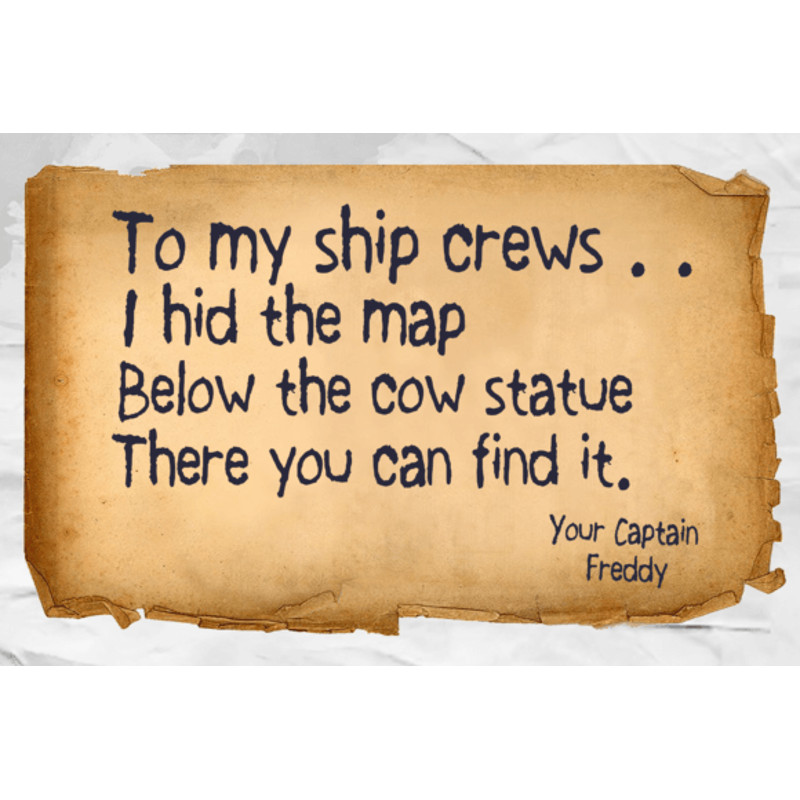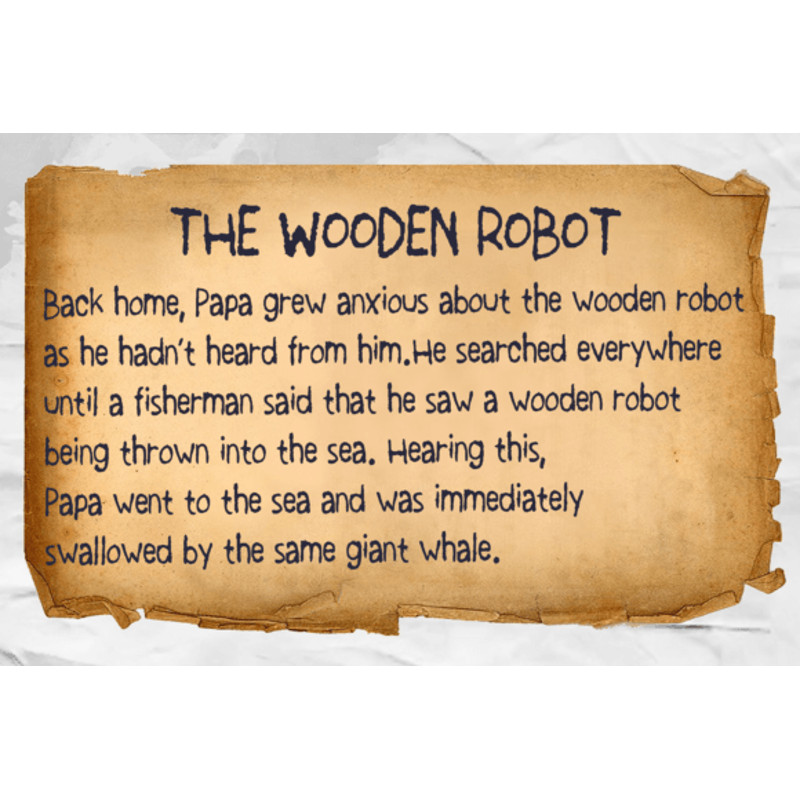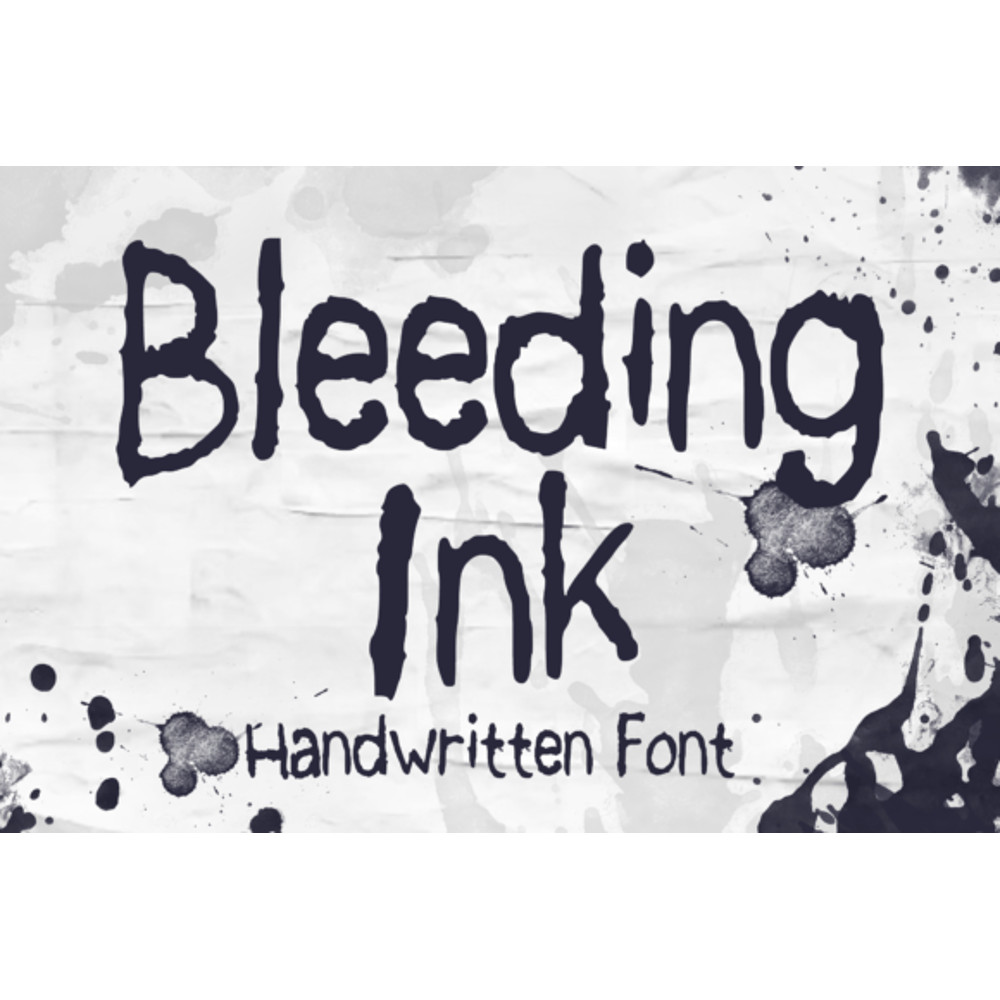
Bleeding Ink Font
Bleeding Ink is a rough hand-drawn display font but still fun and playful in the same time. It works great for creating cool designs that scream for attention. It’s ideal for anything ranging from t-shirts, book designs, restaurant menu, blog writing, greeting cards to stickers, or anything that needs a casual touch. Fall in love with its incredibly cool style, and use it to create lovely designs!